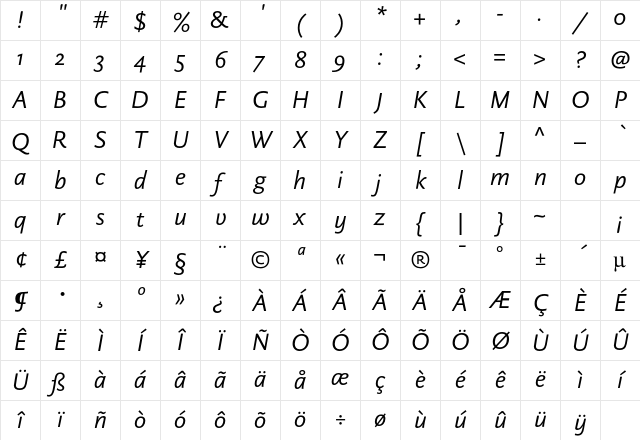
Complete DTLDocumentaSansST Italic glyph index. Displaying only characters natively supported by DTLDocumentaSansST Italic font.
DTLDocumentaSansST is a composed and adaptable typeface that performs quietly and consistently across a wide range of design contexts. The slanted form adds forward momentum and visual energy.
Pro Tip: Use DTLDocumentaSansST for emphasis, pull quotes, and subheadings where its slanted energy can add rhythm to the layout.